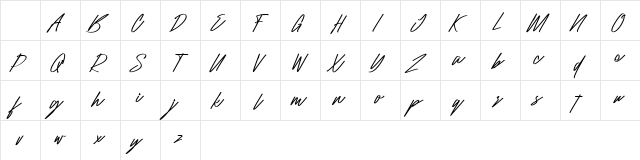
Raidden is a composed and adaptable typeface that performs quietly and consistently across a wide range of design contexts. The slanted form adds forward momentum and visual energy.
Pro Tip: Use Raidden for emphasis, pull quotes, and subheadings where its slanted energy can add rhythm to the layout.